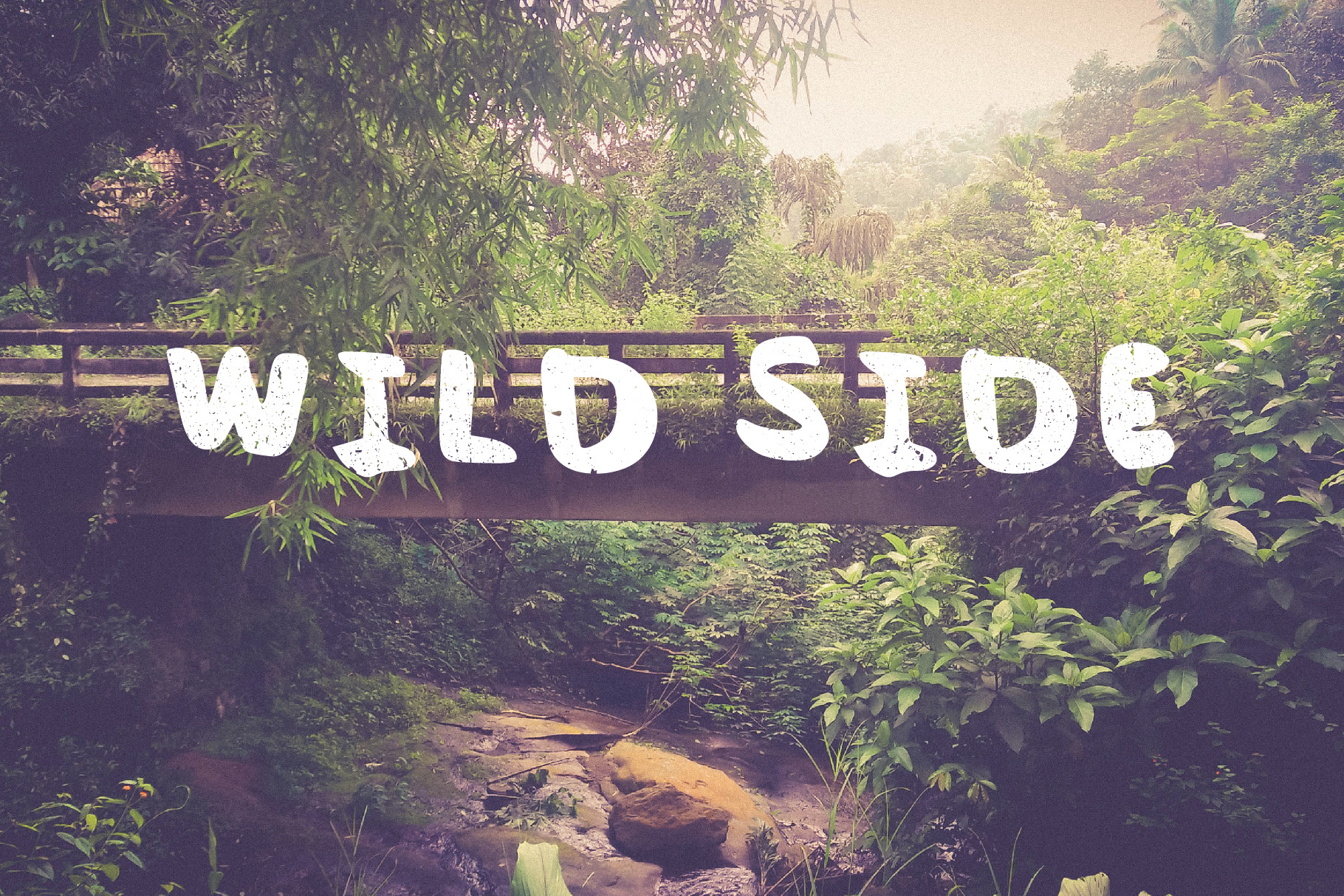
Chillout Font
CHILLOUT FONT
You can use this fun bold font for powerful quote posters, greeting cards, business cards, logos, books, clothing and more!